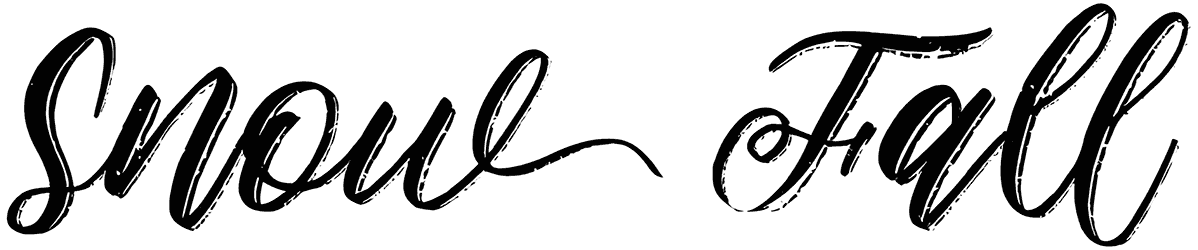
Dry Brush Font
The lettering of this brush font matches the strokes and styles created with a paintbrush and will add a more realistic and hand-drawn feel to your typography making it one of a kind. This Dry Brush offers all the letterforms that are needed for you to achieve the most unbelievable text or design you can imagine with its mixed-case alphabets, numbers, and punctuations.
The Dry Brush characters have a faded effect, suitable for posters, flyers, invitation cards, and similar places!
The focus on this font was a realistic reproduction of brush strokes, to create a compact and bold look that can be used both in headlines and as well as in short letter combinations.
Designed by: Levi Szekeres